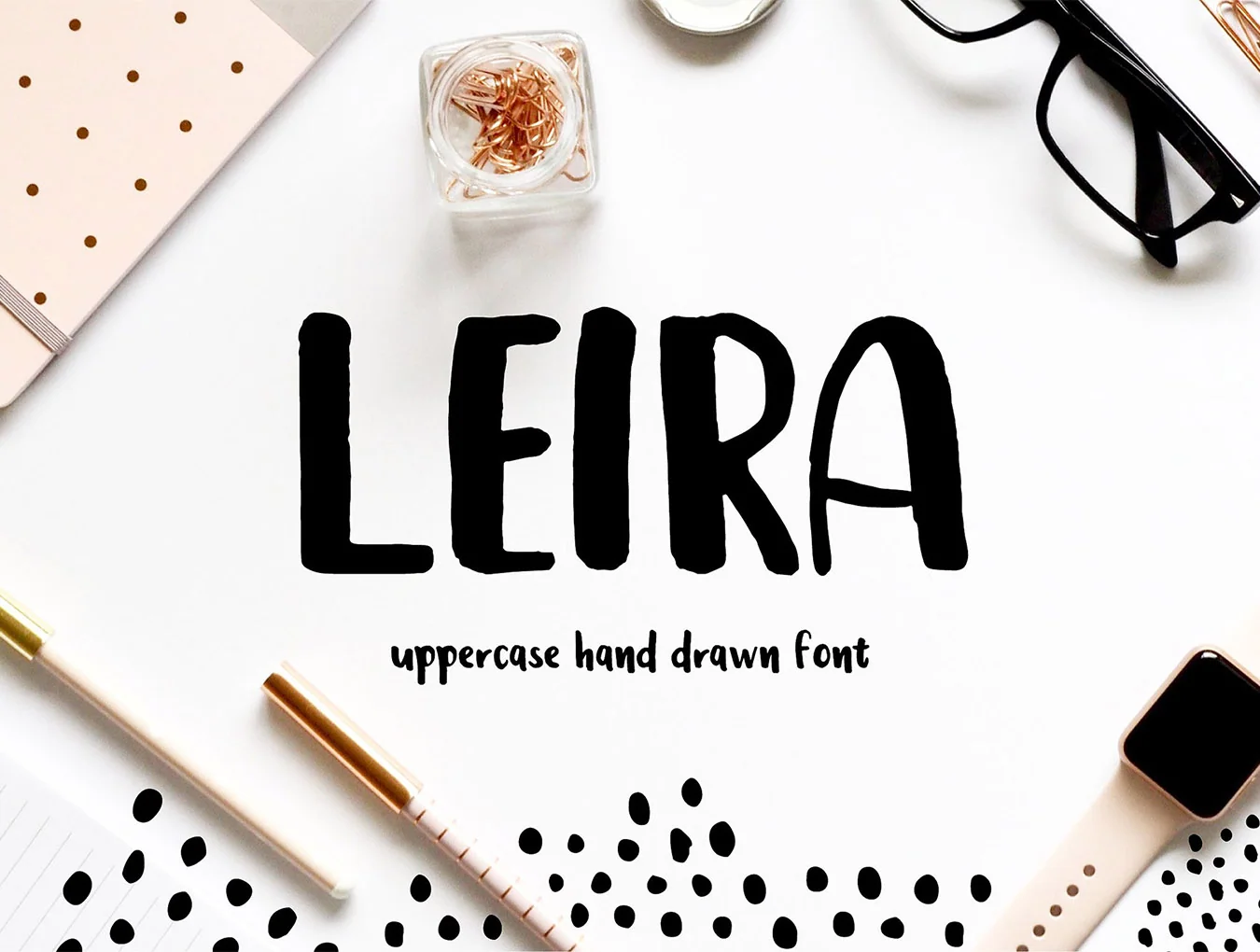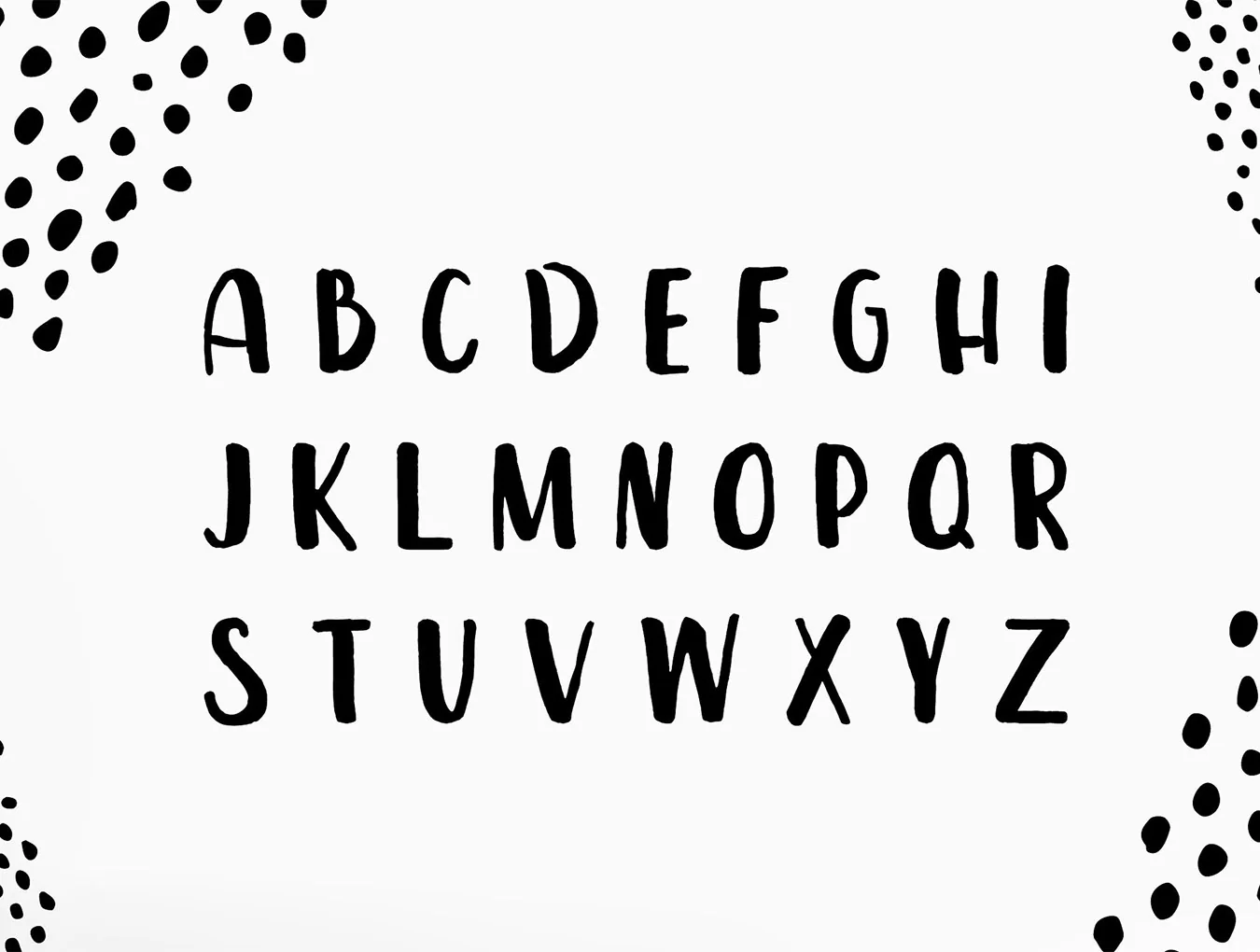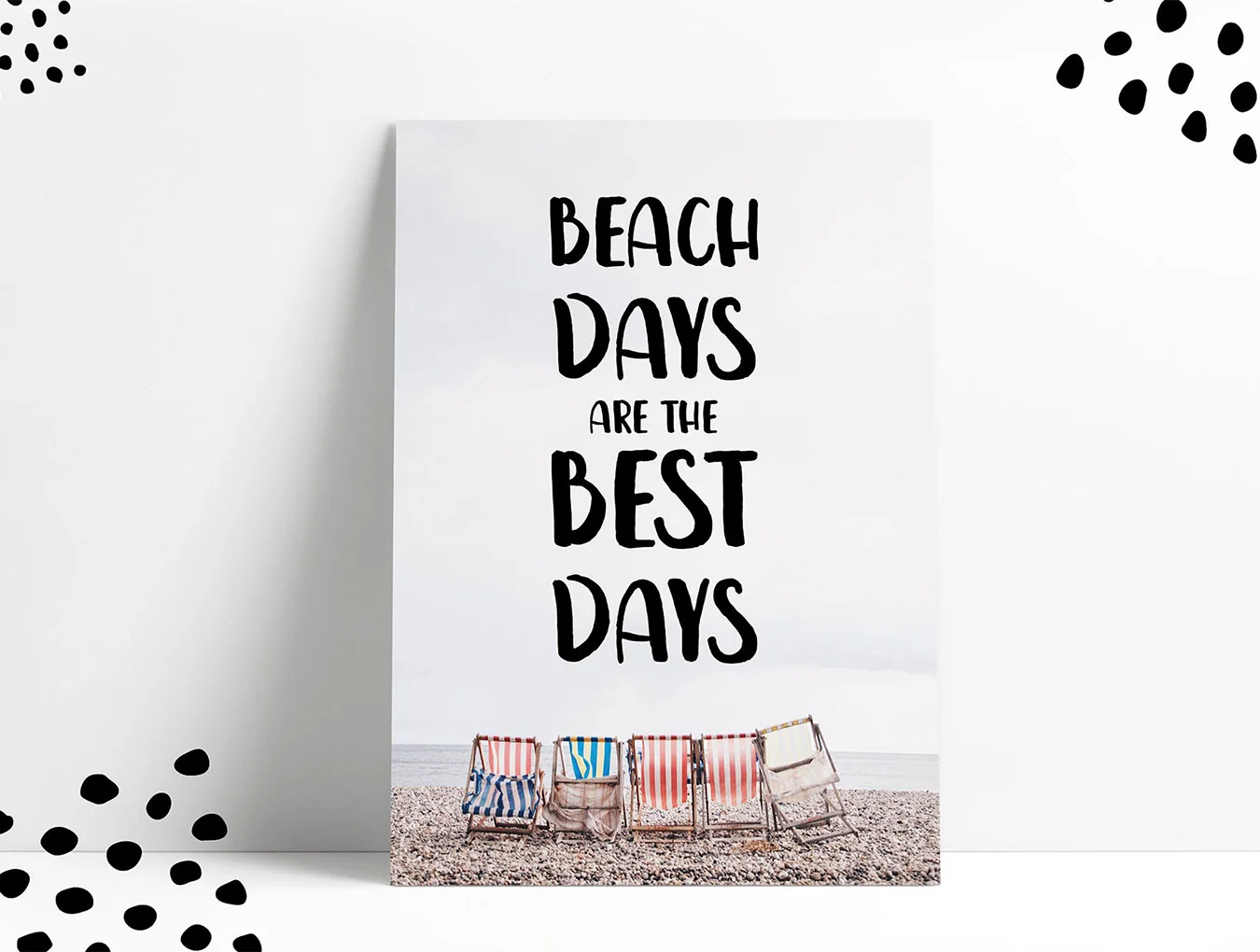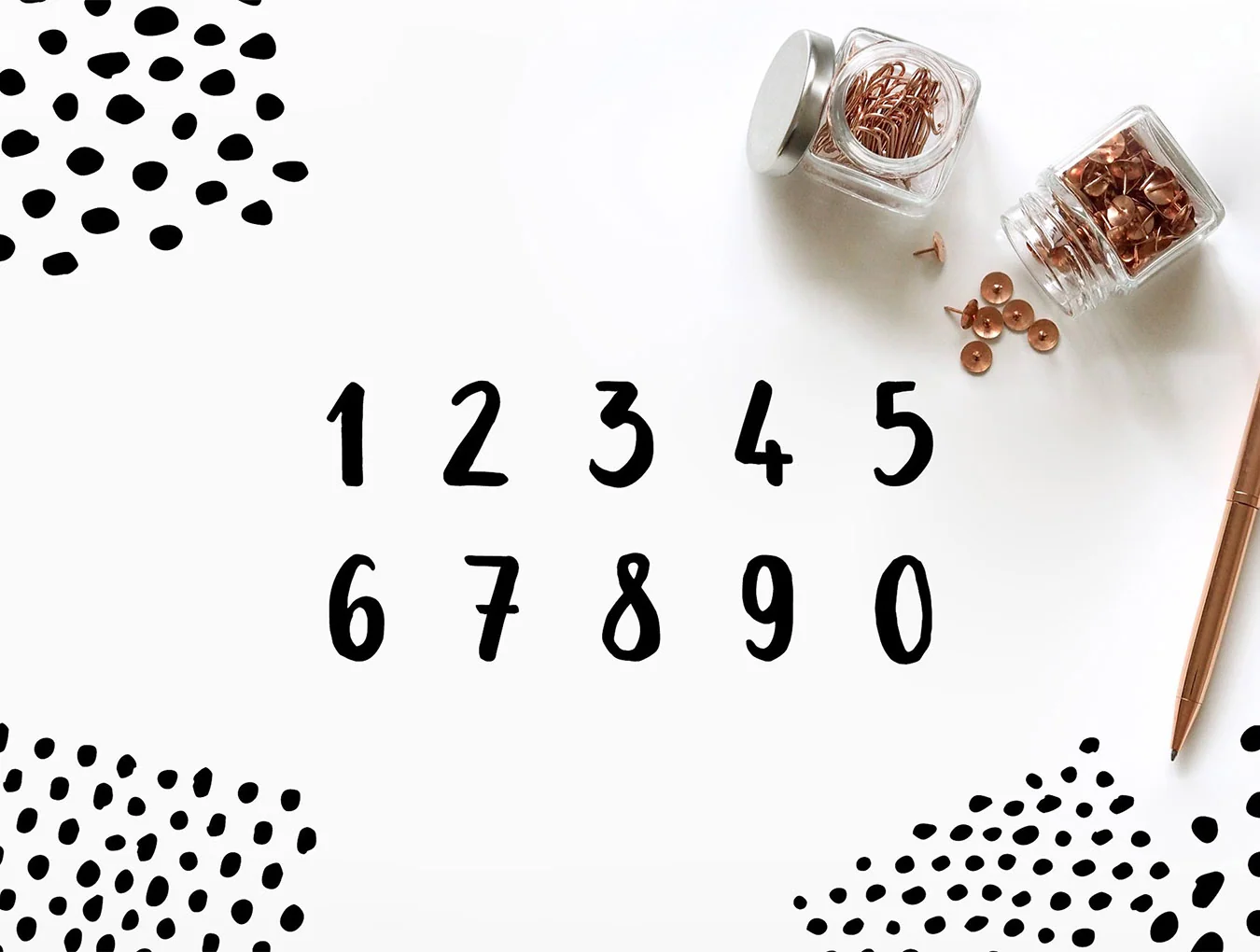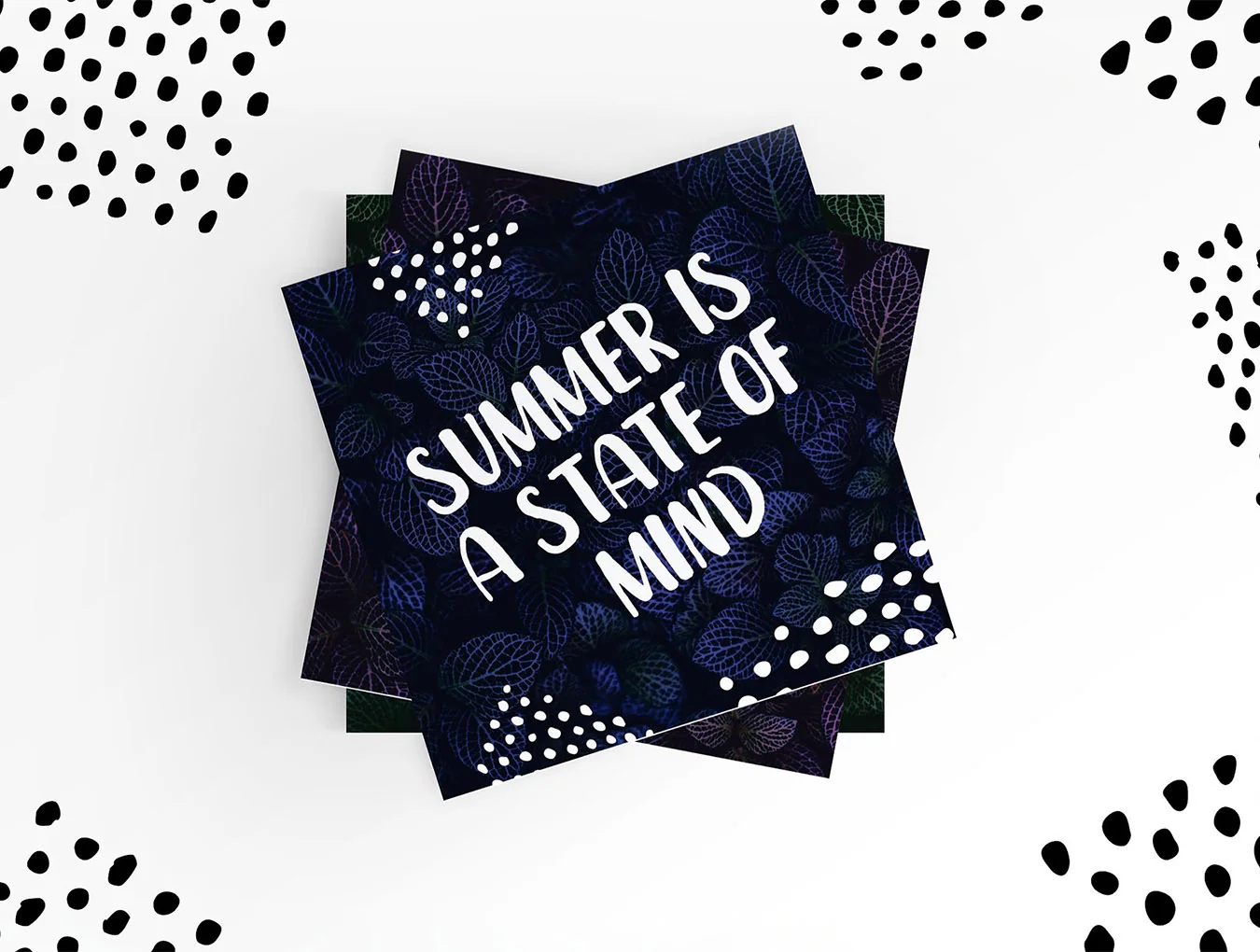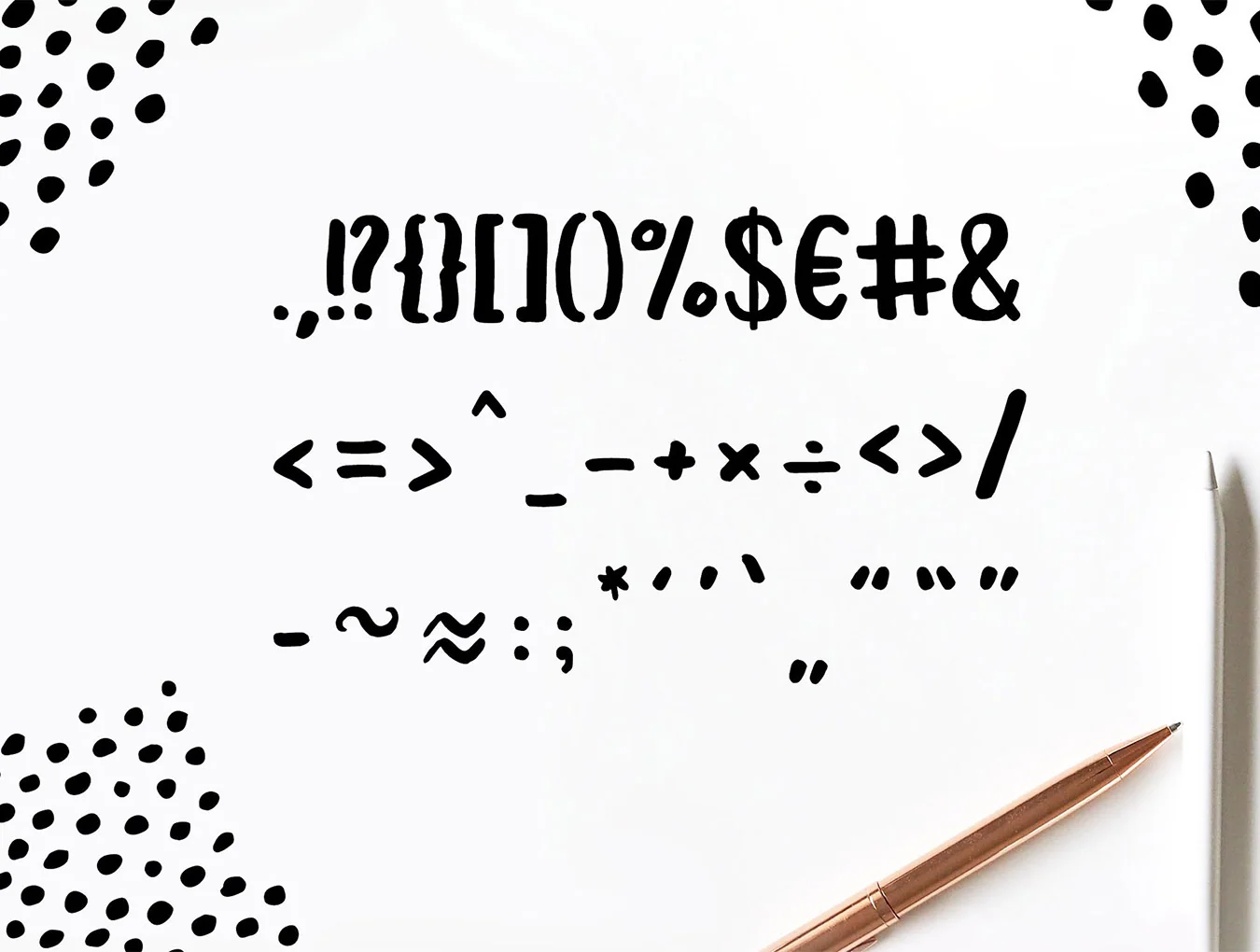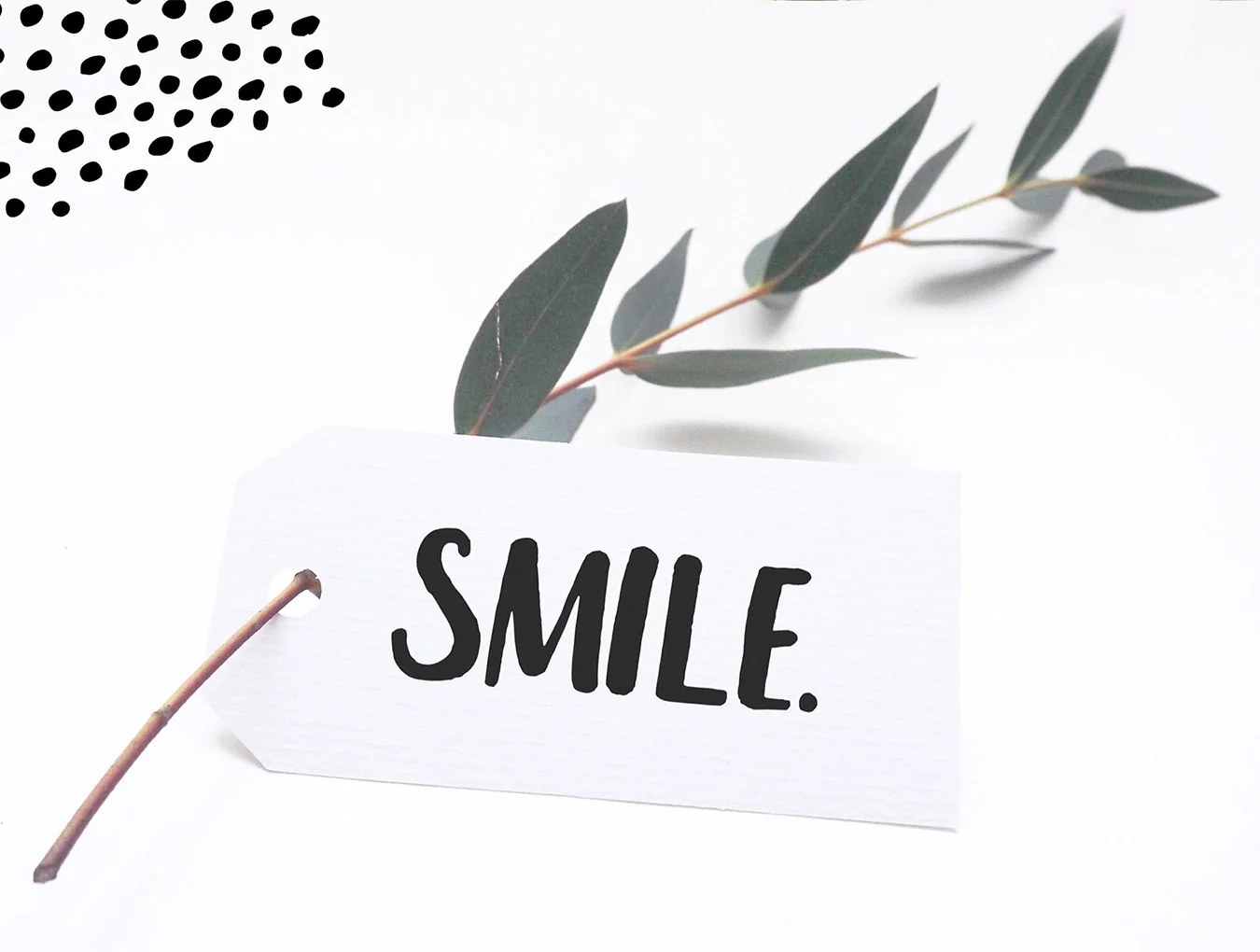
Leira Brush Font
Handmade Uppercase Brush Lettering Font
Sketched by hand
Brush-style lettering
Capital letterforms
Leira Hand Drawn Font is an all-caps brush typeface with a natural handmade look. Its bold, readable letters add a personal feel to your work and suit branding, logos, posters, cards, and package designs. Includes uppercase characters, numerals, and symbols.